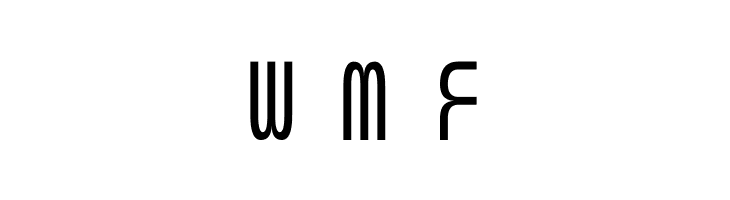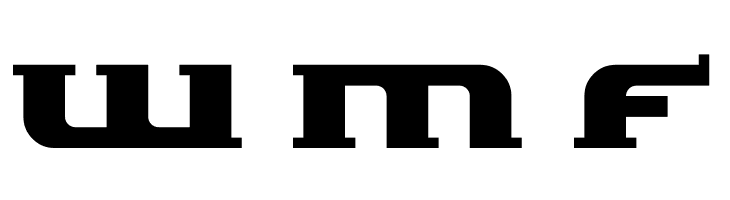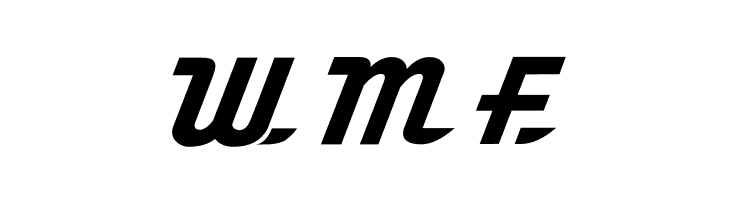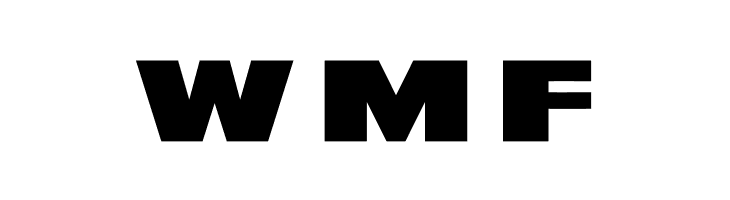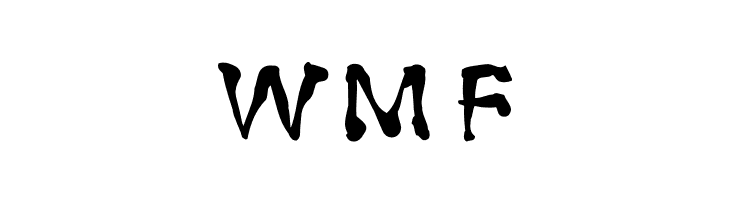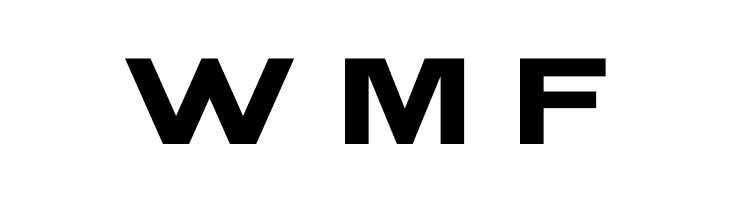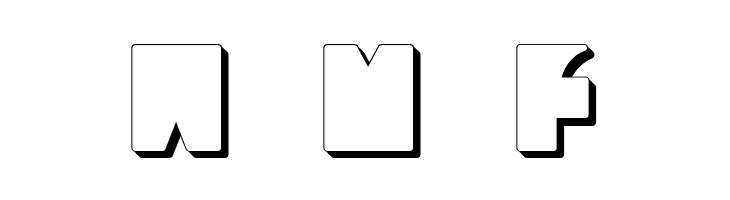
A bold, geometric font with a modern, industrial feel.
A bold, italicized font with a dynamic and energetic style.
A bold, expressive brush-style font with dynamic, handcrafted strokes.
A bold, modern font with thick, uniform strokes and geometric shapes.
A playful, hand-drawn style font with irregular, textured strokes.
A bold, modern font with geometric lines and strong presence.
A bold, high-contrast serif font with a modern and impactful style.
A bold, italicized font with high contrast and dynamic slant.
A modern, geometric font with clean lines and a structured, minimalist design.
A bold, geometric font with unique cutouts and a modern aesthetic.